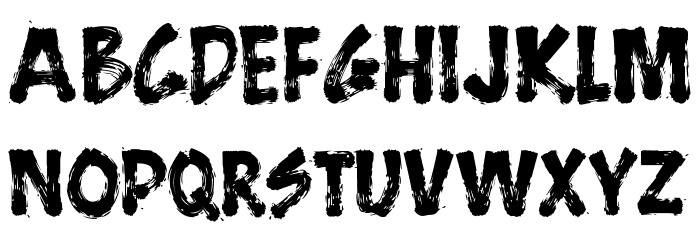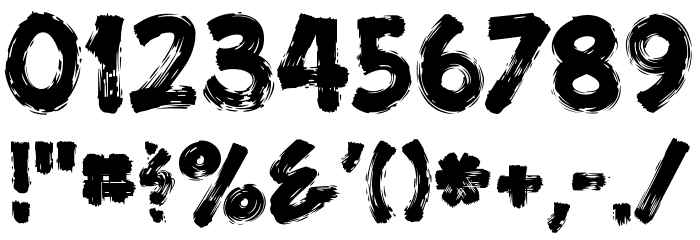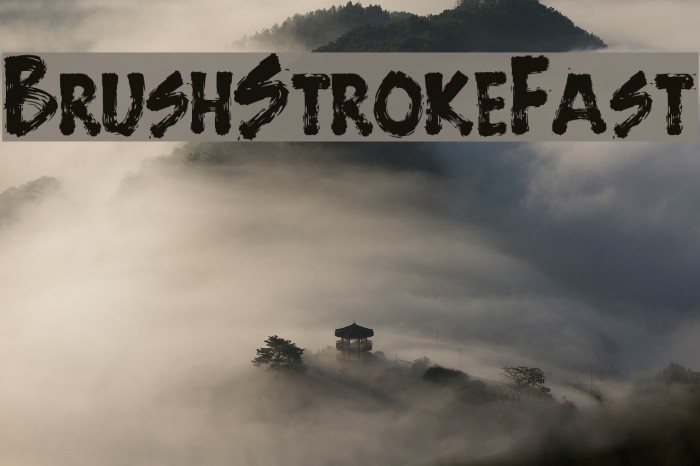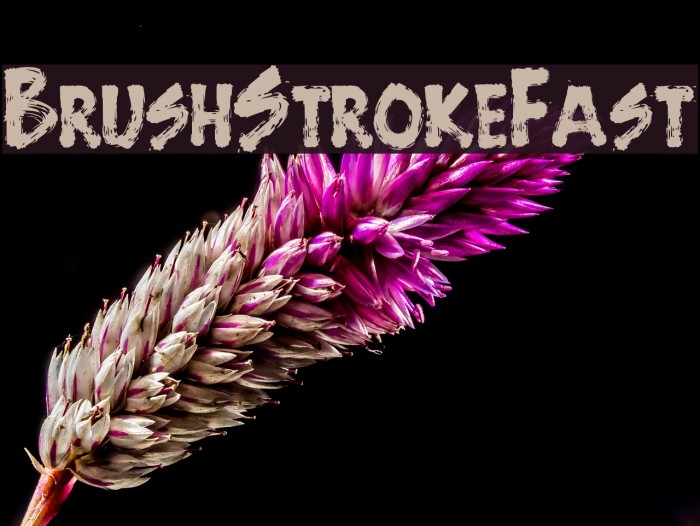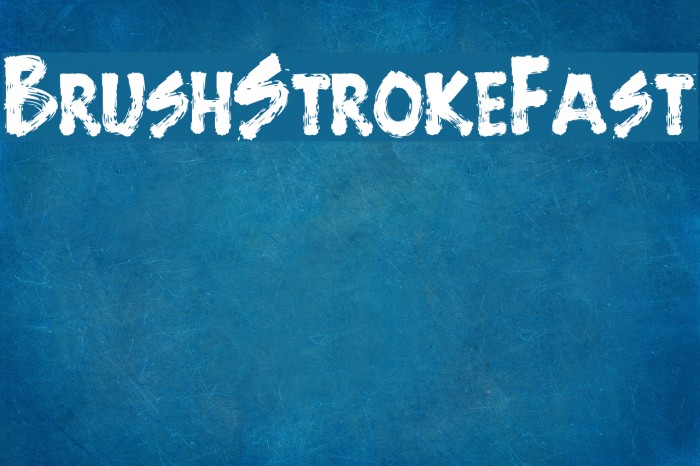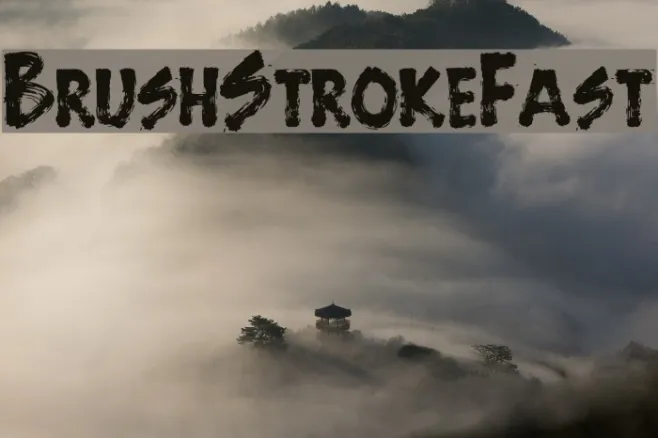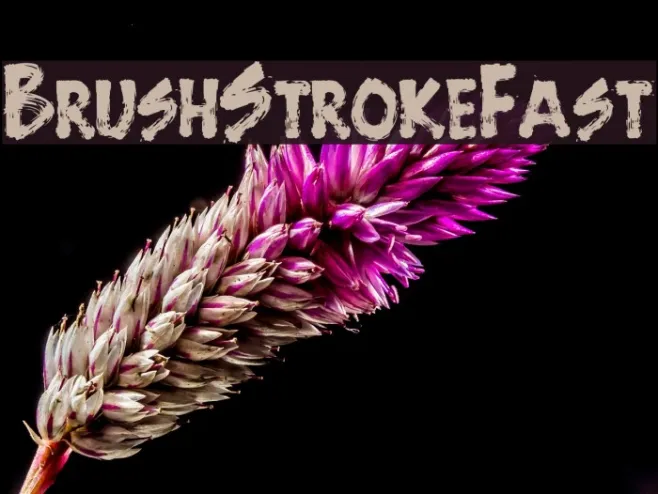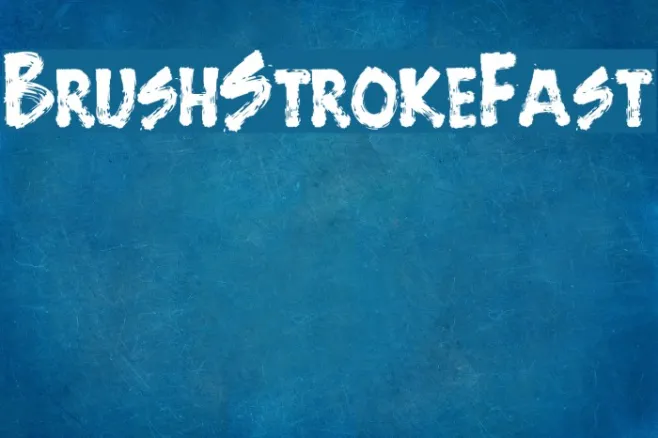
BrushStrokeFast Font
This font features a bold, expressive style reminiscent of brush strokes, giving it a dynamic and artistic appearance. The characters are crafted with uneven edges and varying thickness, mimicking the natural flow of paint on a canvas. This design choice adds a sense of movement and energy, making it ideal for creative projects that require a strong visual impact. The uppercase and lowercase letters maintain a consistent style, with numbers and special characters following suit, ensuring a cohesive look across all text elements.
A bold, brush-stroke inspired font with dynamic, artistic flair.
- Proposed Projects: Ideal for posters, album covers, branding, and any project needing a bold, artistic touch.
- Overall Style: Artistic, Dynamic